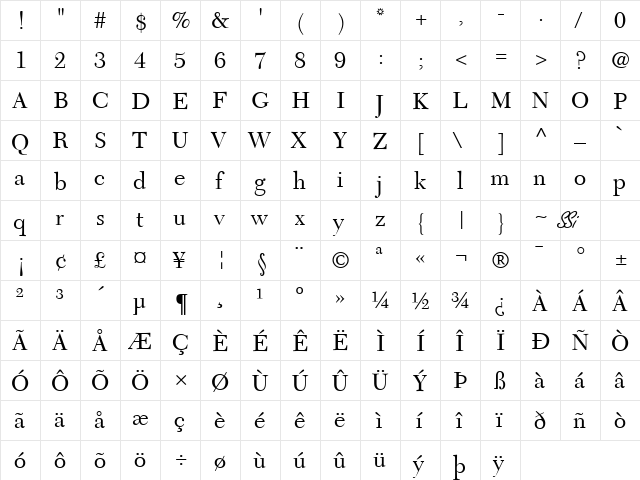
Tycoon SSi Regular
Design Context for Tycoon SSi Typeface
Tycoon SSi takes a measured approach to typography — its balanced proportions and neutral character make it a reliable workhorse for both digital and print work.